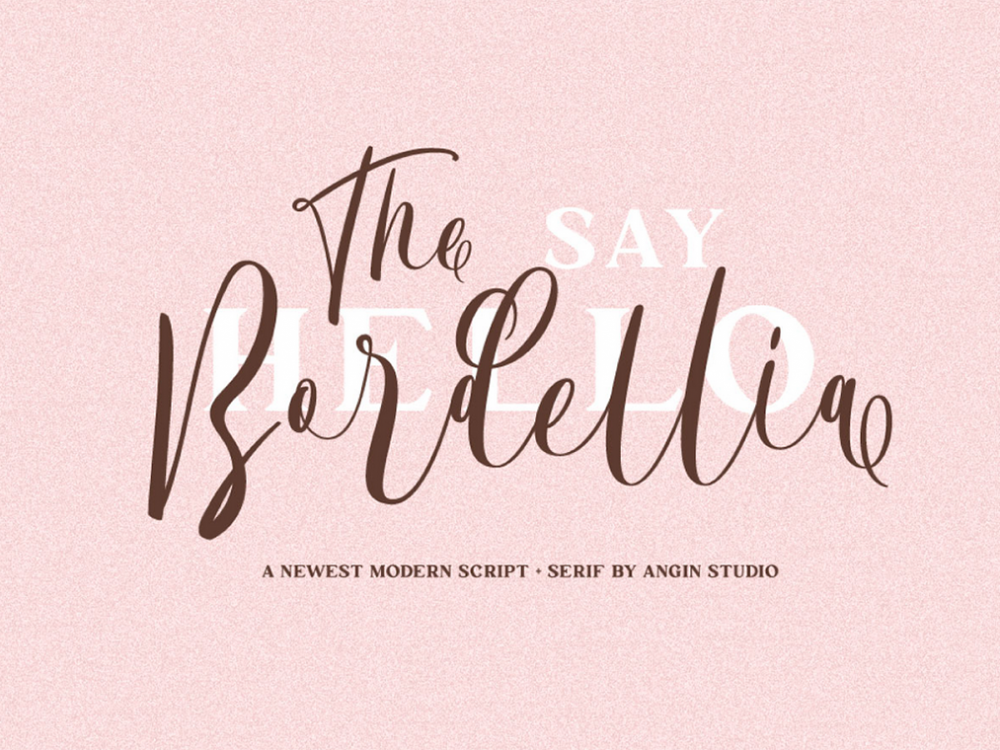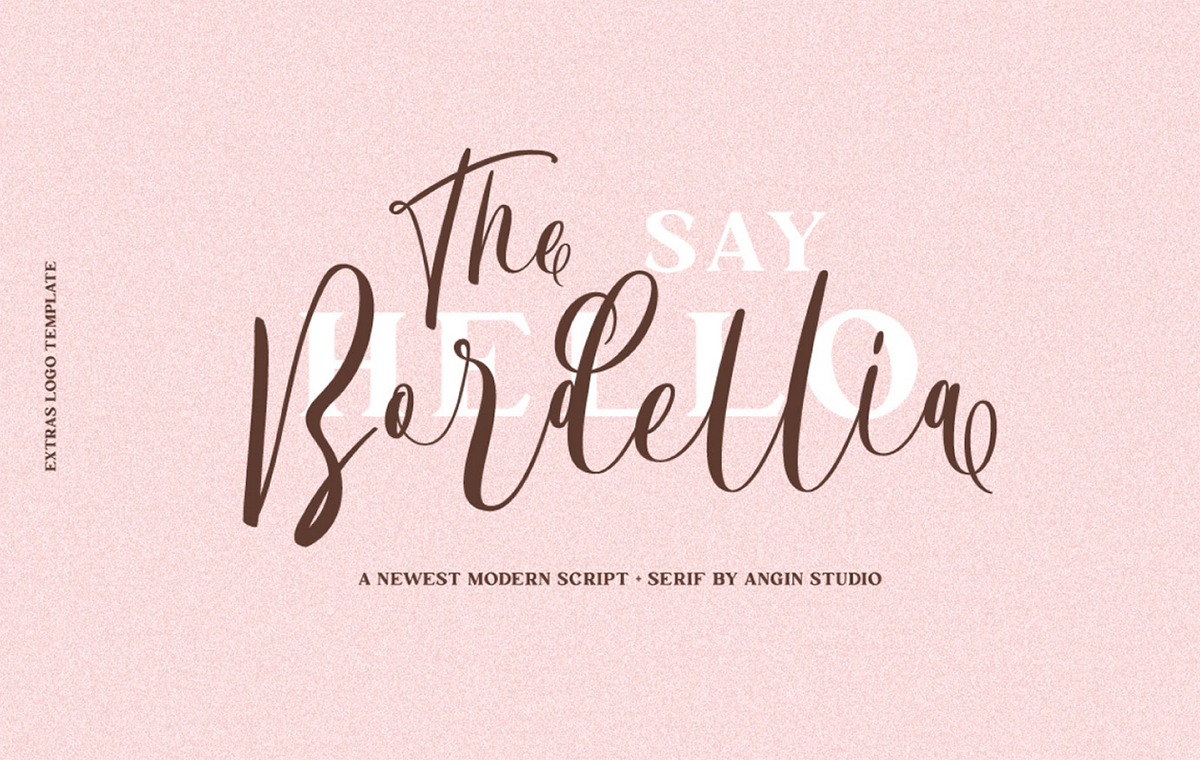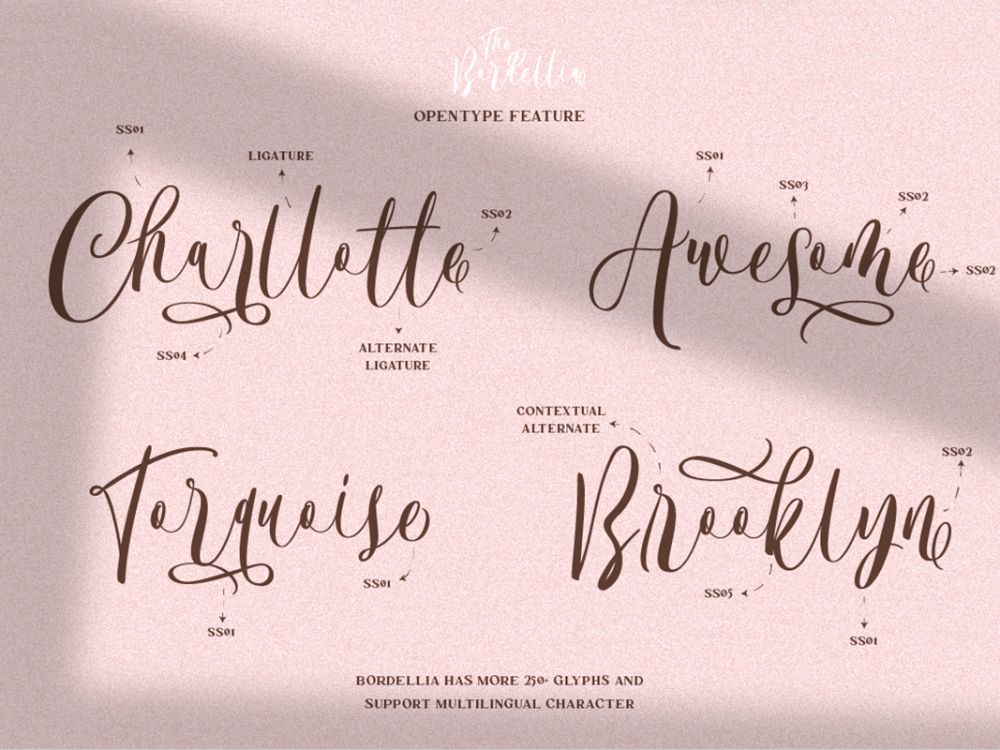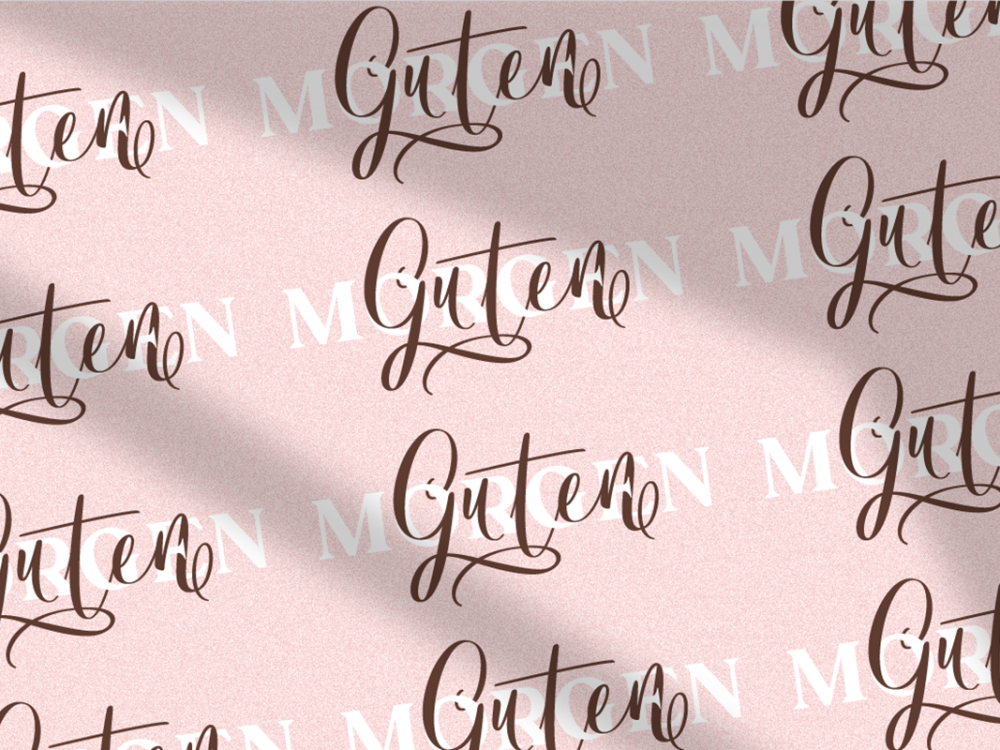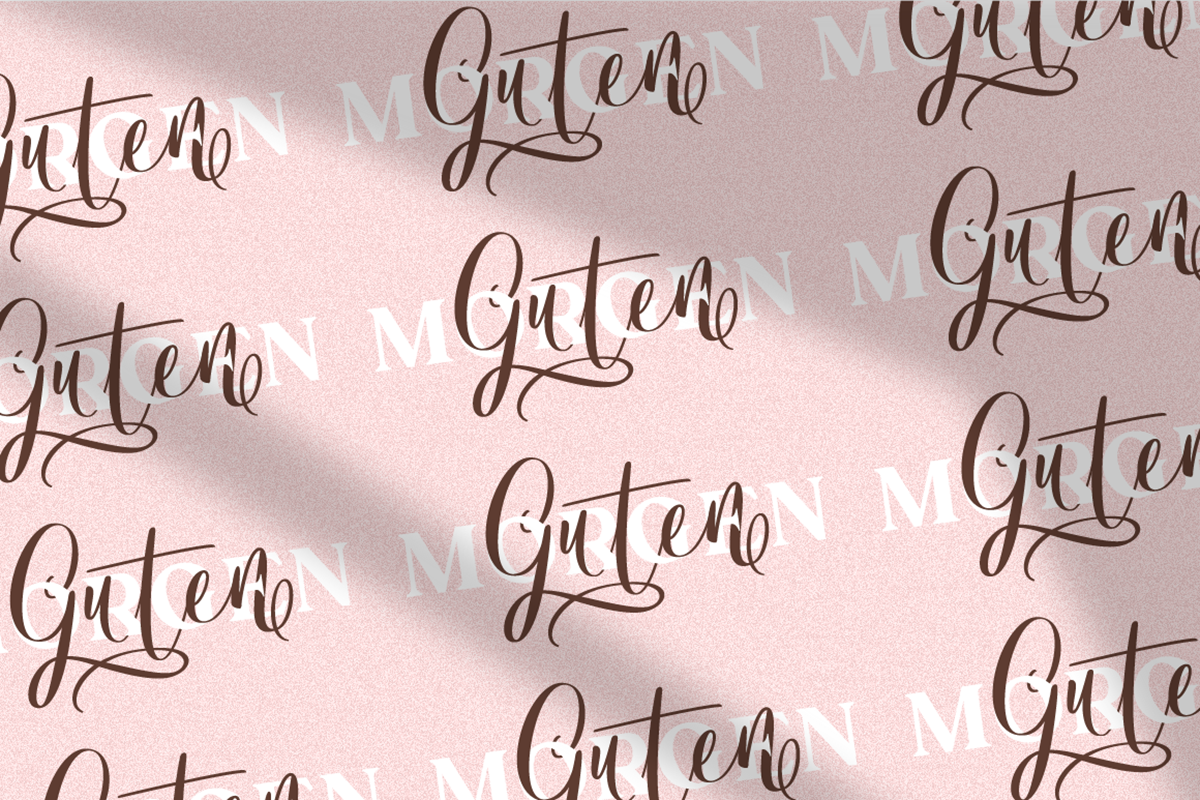
Bordellia Script Lettering Font
Bordellia Script Lettering Font is an interesting modern handwritten typeface that features an elegant style and will help add freshness and style to any of your design projects. Use this font to create greeting cards, wedding invitations, flyers, prints, and more. If you wish to access more features and use them for commercial work please buy the full version.